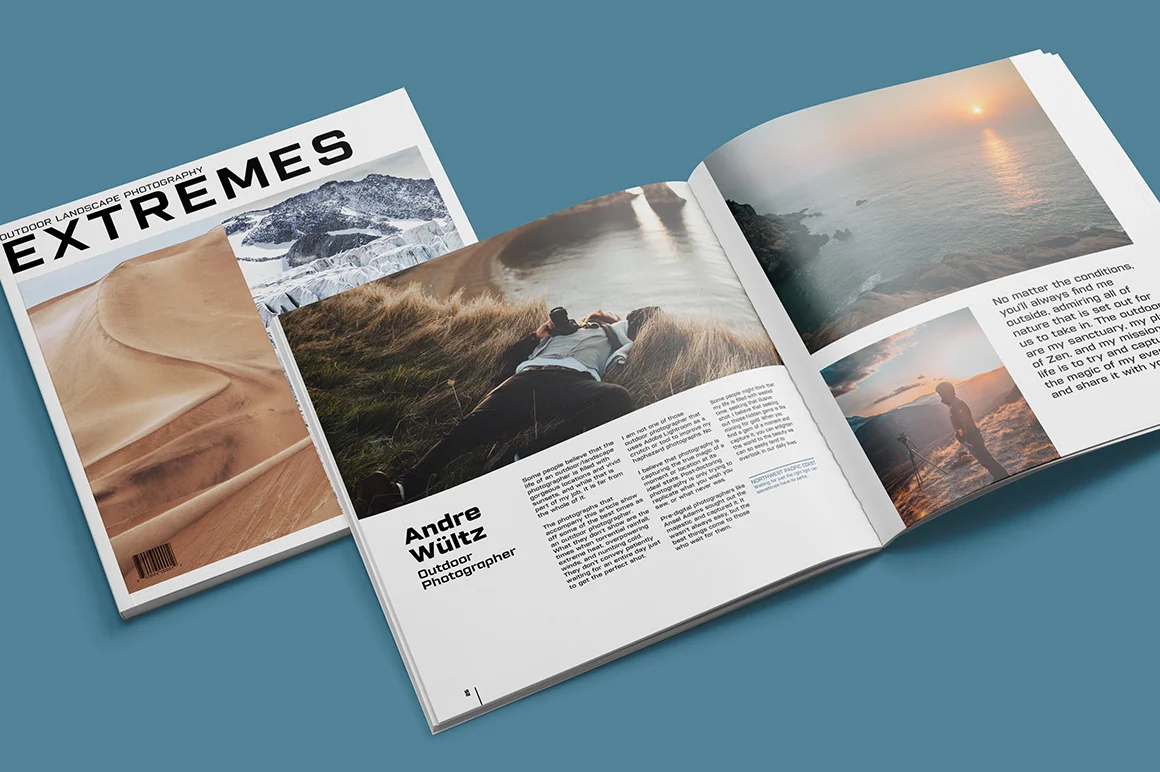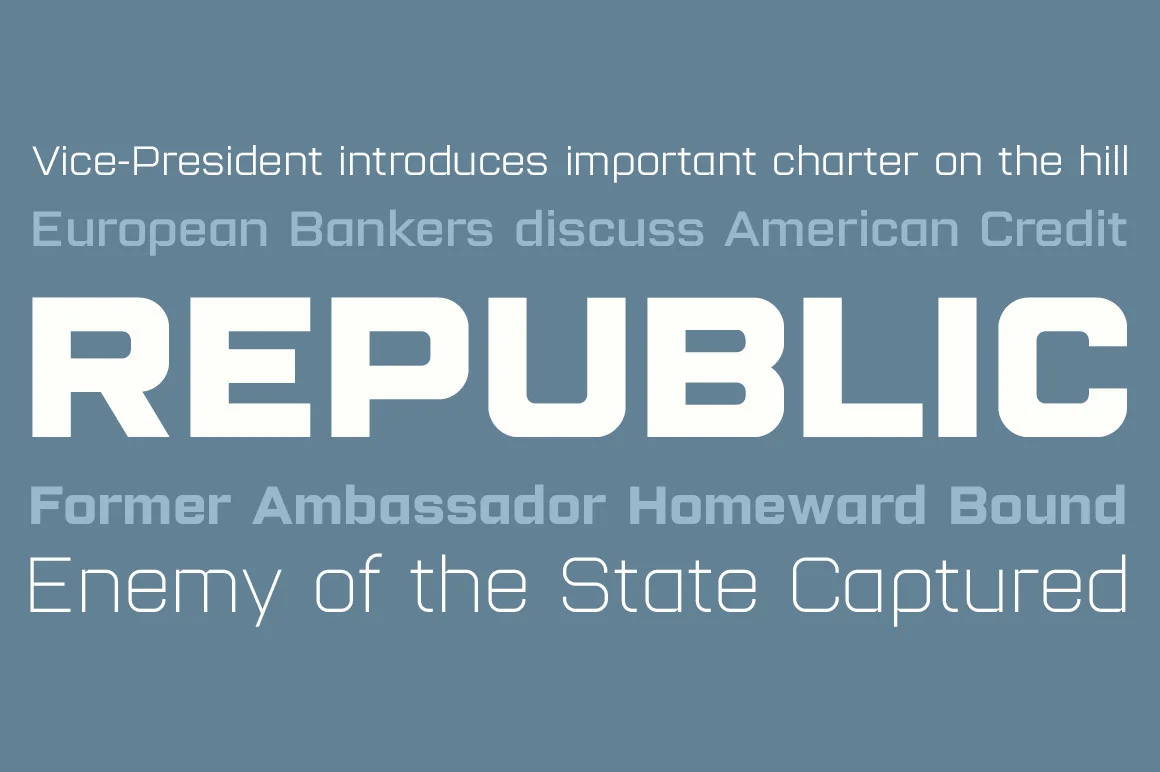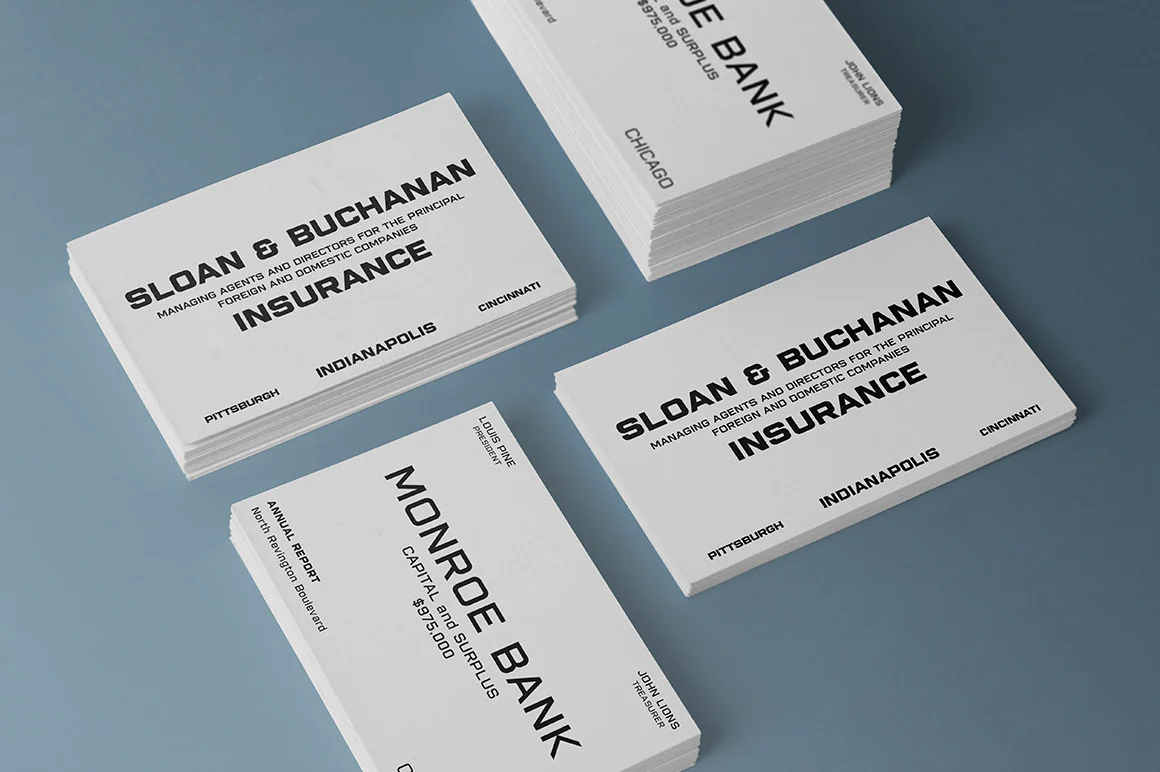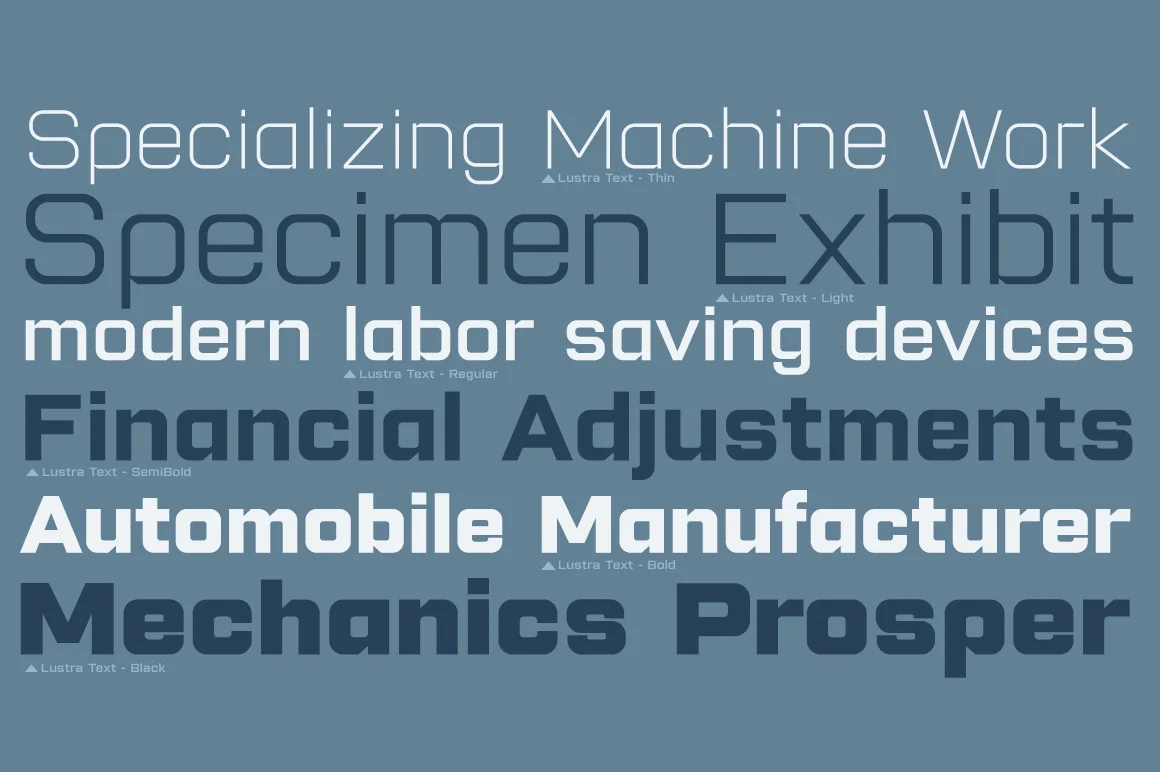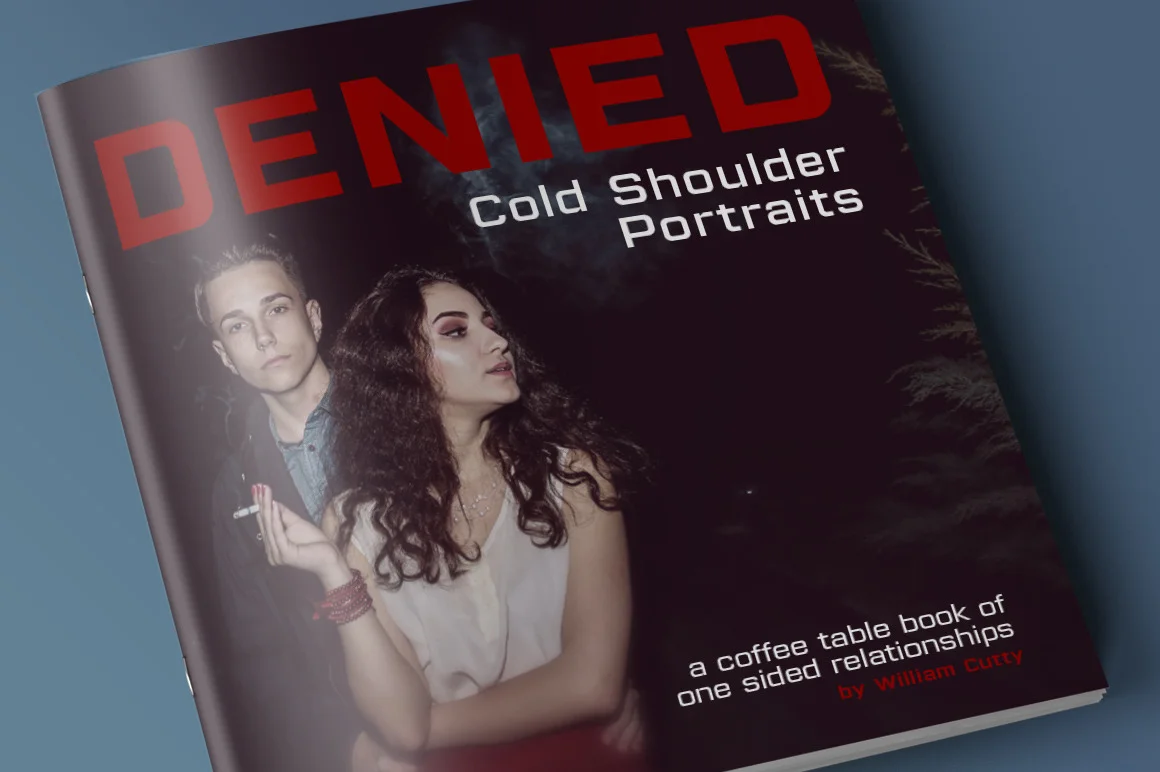
Lustra Text Family Font
There is a particular satisfaction in finding a typeface that delivers refined proportions and careful stroke modulation without compromise. Lustra Text Family consistently provides that. The typeface brings a versatile sensibility to a broad range of creative disciplines, with distinctive character without sacrificing readability that holds up whether the work is print-first or screen-first.
In practice, Lustra Text Family proves particularly effective for brand identity systems, social media graphics, packaging design, signage systems, logo design. Designers reaching for it report that the type decisions feel resolved rather than laboured — a useful quality when client timelines are tight and creative bandwidth is limited.
Spacing and kerning pairs have been individually reviewed for the most common letter combinations in English and major European languages. The result is even type colour across continuous text, with no awkward gaps or collisions between adjacent characters.
The range of applications extends to product labels, web design, advertising campaigns, poster creation. That breadth is not accidental: the proportions and spacing were tested across a range of mock briefs before the typeface was finalised, ensuring the design holds together in contexts beyond the obvious ones.
Art directors commissioning type-led campaigns find Lustra Text Family a reliable workhorse for projects where the brief demands both personality and restraint. The typeface avoids the self-conscious quirkiness that dates quickly, settling instead for the kind of considered distinctiveness that remains effective over a longer creative lifespan.